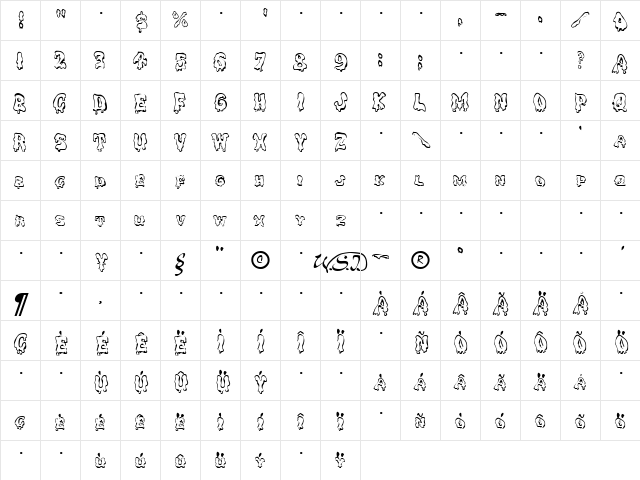
GhoulyCaps normal Free Font
GhoulyCaps normal
Style: normal
GhoulyCaps Family
GhoulyCaps normal
Design Context for GhoulyCaps
GhoulyCaps is a composed and adaptable typeface that performs quietly and consistently across a wide range of design contexts.
Pro Tip: Use GhoulyCaps in both headline and body roles to test its range before committing to a single application.